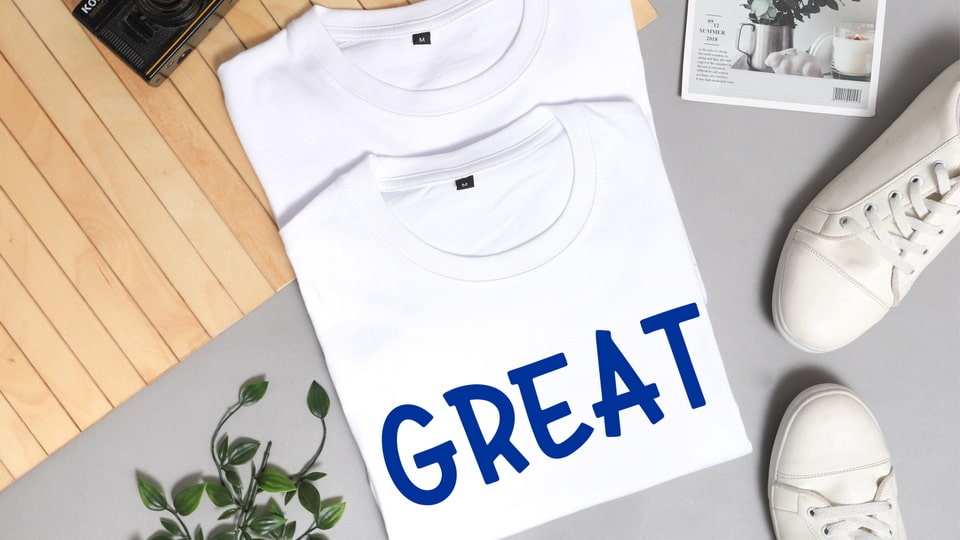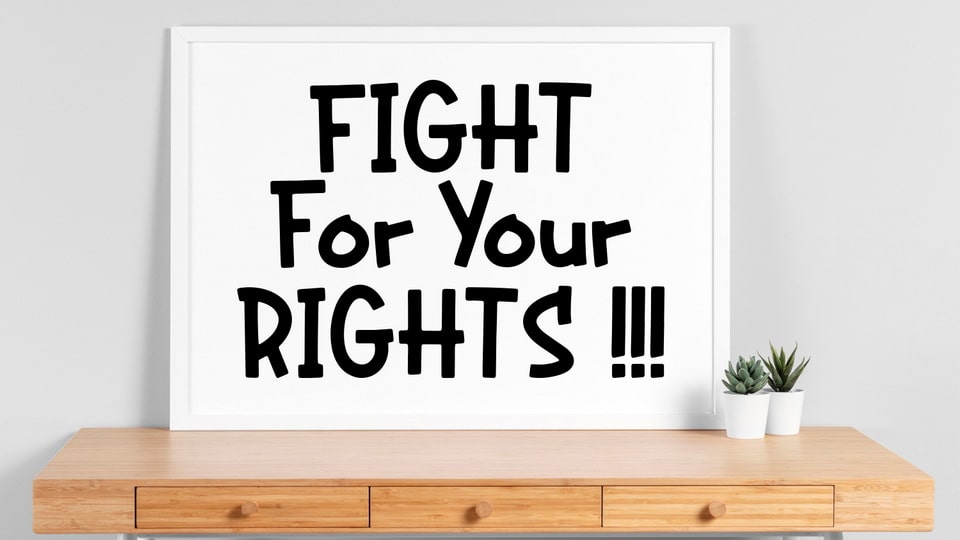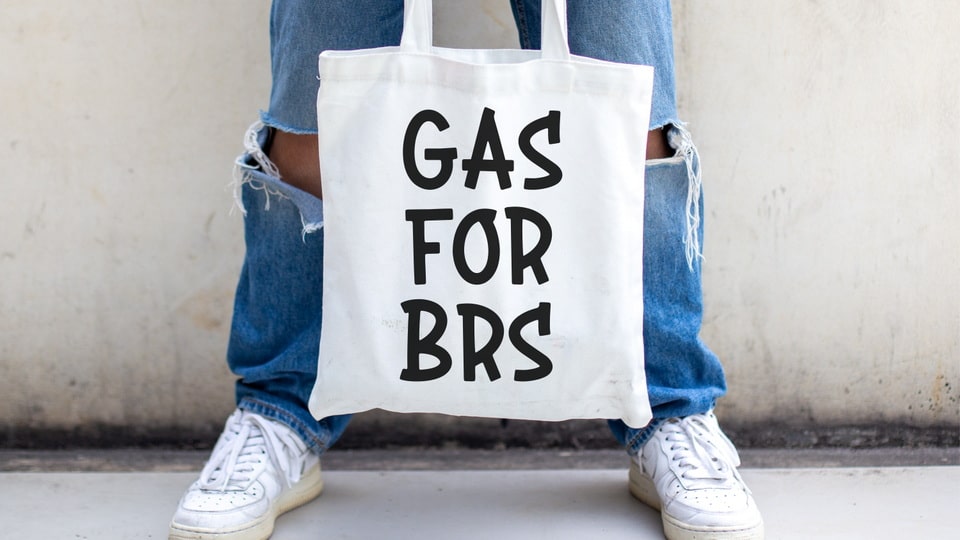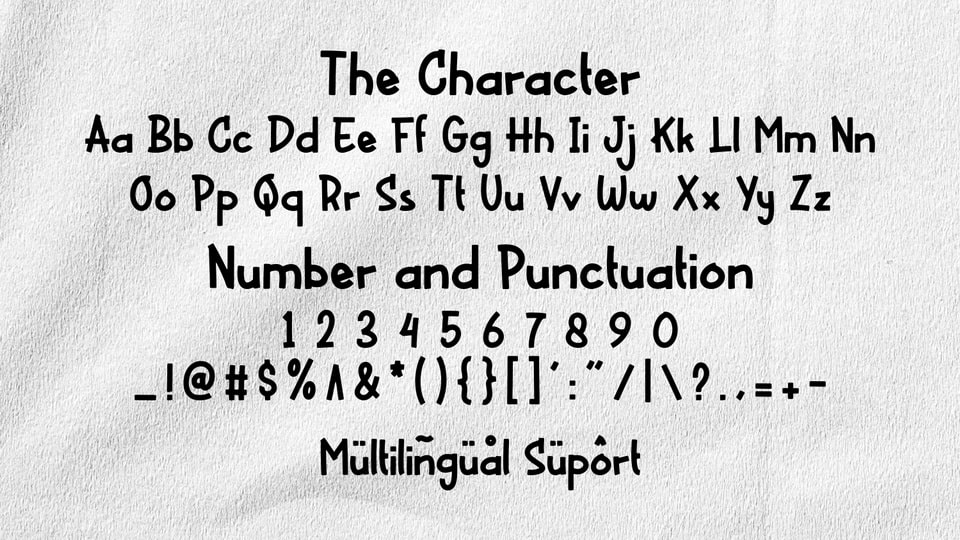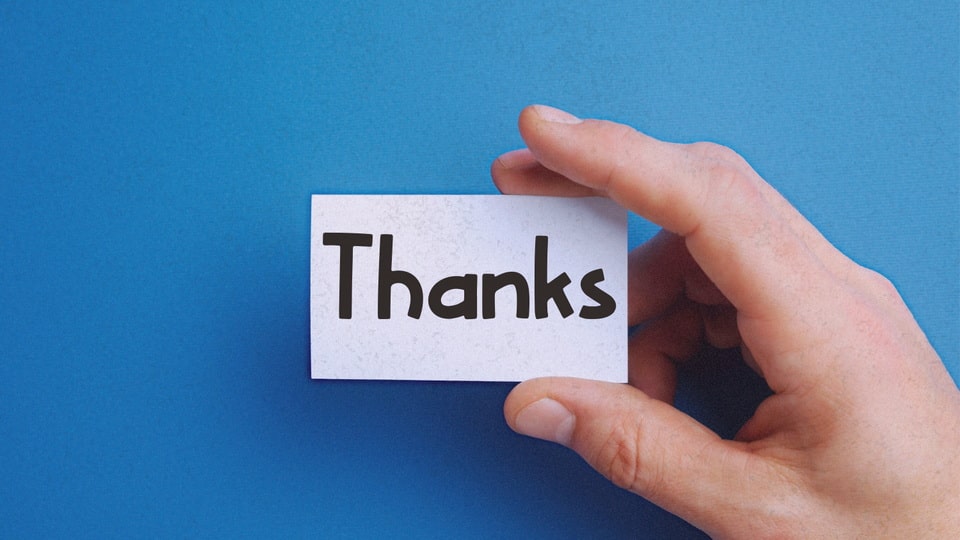
Hot Slice is script font inspired by modern and ligature characters. It is especially designed for luxury, funny and playful projects. Hot Slice font is perfect for creating modern and chic designs such as logos, packaging, editorials and more.